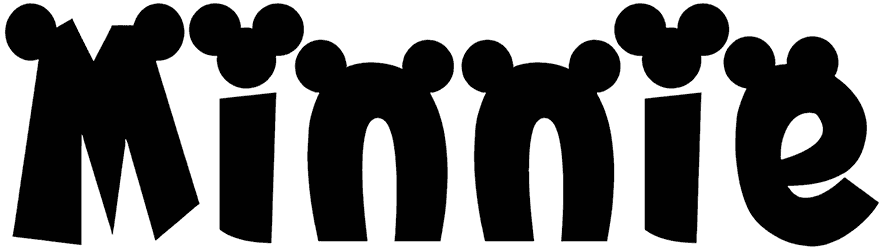
Minnie Font
Great at sounding playful as well as melting your heart, Minnie has a lot to say on your behalf if you’re into cute fonts like this. Where else can you possibly find so much cheerfulness and a nice childish tone for your lettering at once?
With all its elements decorated with bear ears, this bunny font proves itself suited for all kinds of baby apparel designs, toy branding, HBD cards, and so on. Too bad the numbers are missing, though.